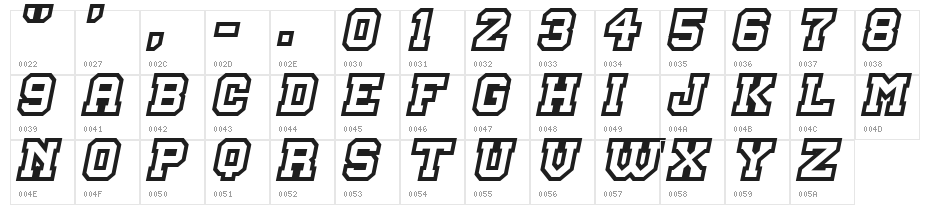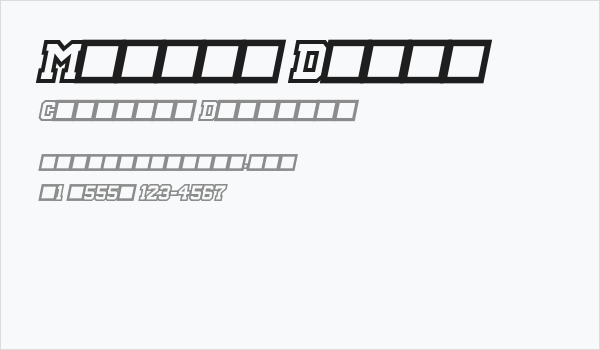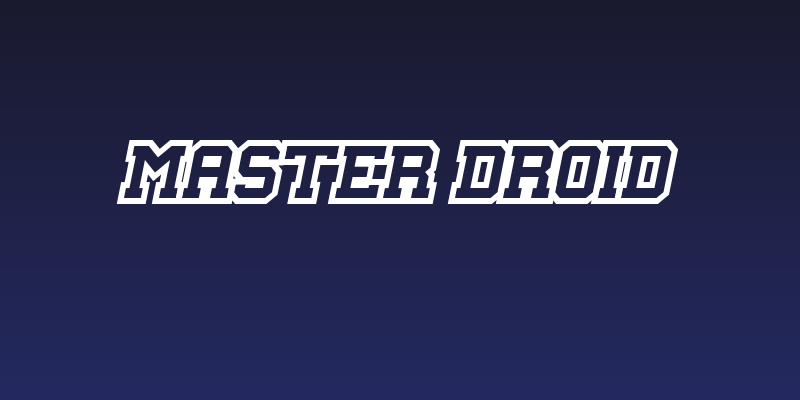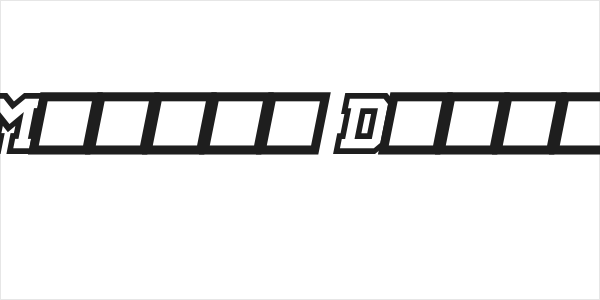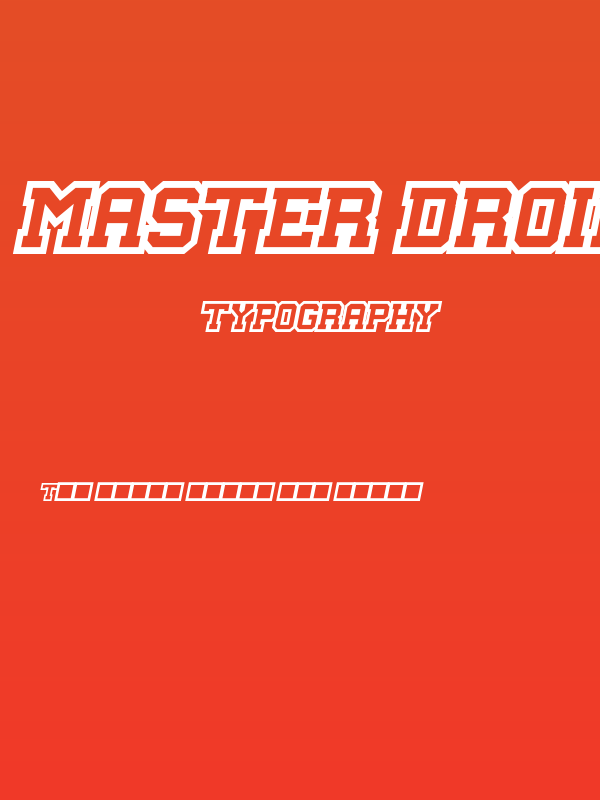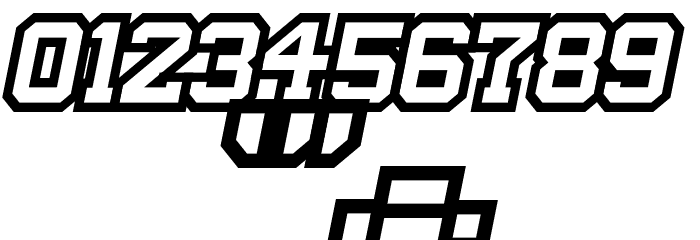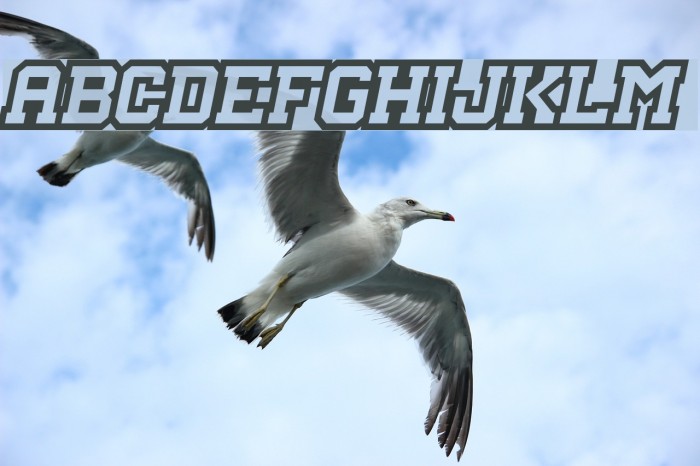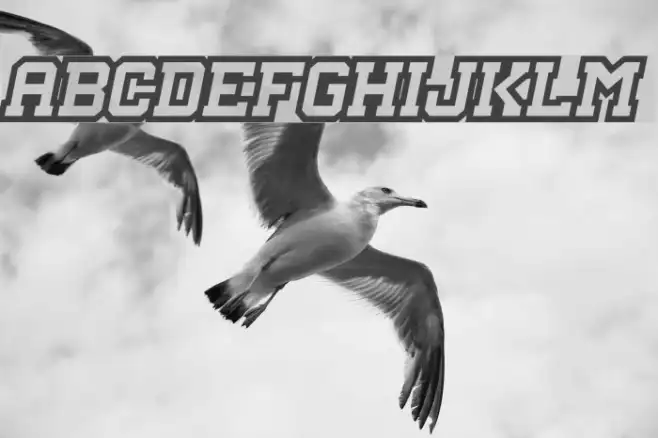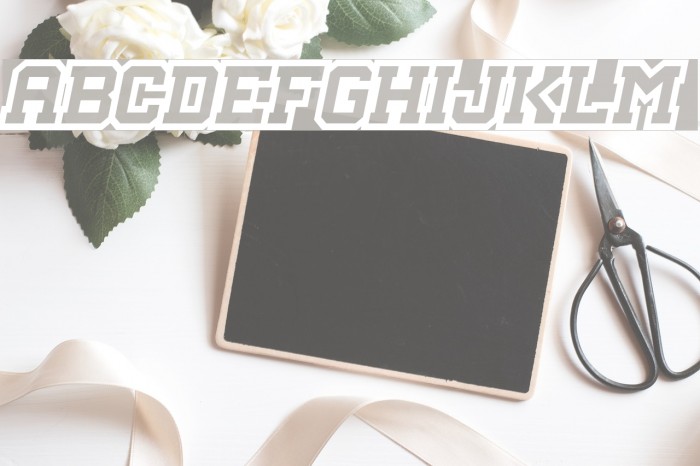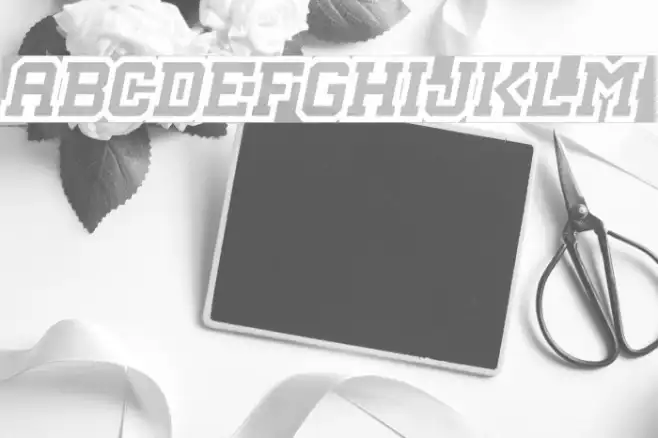
Master Droid Font
Master Droid Description
This font features a bold, futuristic design with a strong presence. The characters are outlined with a thick black border, giving them a three-dimensional effect. The letters are uppercase and have a consistent width, with sharp angles and clean lines that create a sense of movement and energy. The numbers follow the same style, maintaining uniformity across the set. This font is ideal for projects that require a modern and impactful look, such as technology-related branding or sports team logos. Its distinctive style ensures that it stands out in any application.
| Use Case | Logos, Headlines |
| Proposed Projects | Ideal for technology branding, sports team logos, and modern advertising. |